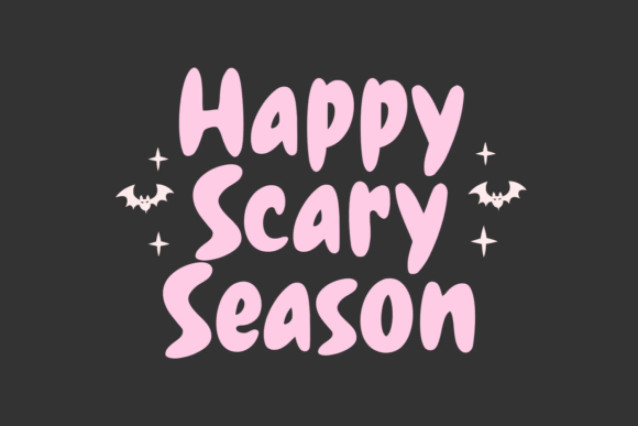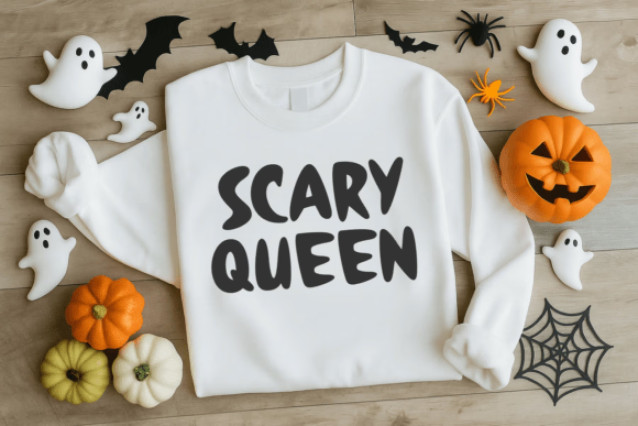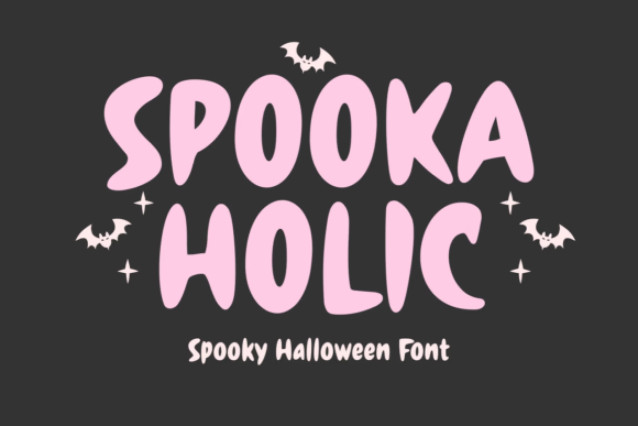
Spooka Holic Font
Spooka Holic is a fun and spooky display font that brings playful chills to your Halloween designs. With its bold curves, quirky flow, and cute, eerie vibes, this font is perfect for anyone who loves the sweet side of spooky season.
Whether you’re crafting Halloween invitations, party decorations, T-shirt designs, posters, stickers, or social media posts, the Spooka Holic font will make your creations stand out with a mix of fun and fright. Its friendly yet spooky style makes it great for both kids’ and adults’ Halloween projects.